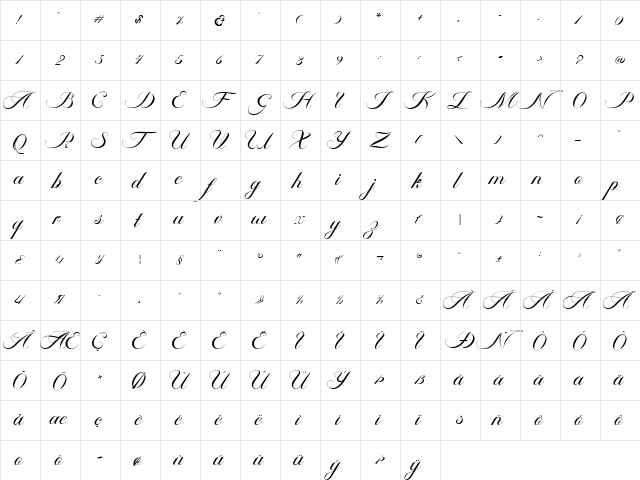
Ambergris Script Free Personal Regular Font Preview
Ambergris Script Free Personal Regular
Ambergris Script Free Personal Regular Font Details
| Foundry | Ferry Hadriyan (fey design) |
Design Context for Ambergris Script Free Personal Typeface
Ambergris Script Free Personal flows with the natural rhythm of handwritten lettering, making it ideal for designs that call for warmth and personal expression.
Font Pairing: Combine Ambergris Script Free Personal with a simple geometric sans for maximum contrast — the tension between flowing curves and clean structure is a classic typographic pairing.
Pro Tip: Use Ambergris Script Free Personal for short runs of text — names, titles, or taglines. Extended body copy in script faces tires the eye quickly.